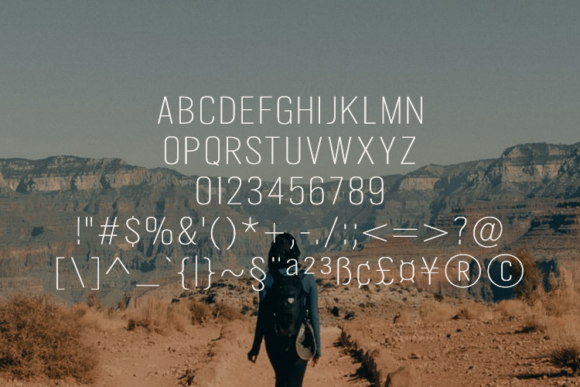
Introducing Corela Font: The Perfect Blend of Smooth and Sharp
Are you a designer or crafter looking for a font that can elevate your creative projects to the next level? Look no further than Corela Font, a fancy, contemporary sans serif font that is sure to impress. With its perfectly balanced mix of smooth and sharp lines, Corela Font is the perfect complement to any design need.
What is Corela Font?
Corela Font is a modern sans serif font that is designed to be both stylish and versatile. Its clean lines and balanced curves make it perfect for use in a wide range of design projects, from logos and branding to packaging and advertising. Whether you’re working on a digital project or a print project, Corela Font is sure to make a lasting impression.
Key Features of Corela Font
So, what sets Corela Font apart from other fonts? Here are just a few of its key features:
- Contemporary design: Corela Font has a modern, contemporary design that is sure to appeal to designers and crafters who are looking for a fresh, new look.
- Smooth and sharp lines: The font features a perfectly balanced mix of smooth and sharp lines, which gives it a unique and stylish appearance.
- Versatile: Corela Font is incredibly versatile, making it perfect for use in a wide range of design projects.
- Easy to read: Despite its stylish design, Corela Font is also easy to read, making it perfect for use in body text as well as headlines.
How to Use Corela Font
Corela Font is incredibly easy to use, and can be incorporated into your design projects in a variety of ways. Here are just a few ideas to get you started:
- Logos and branding: Use Corela Font to create a stylish and memorable logo for your business or brand.
- Packaging design: Corela Font is perfect for use in packaging design, where its clean lines and balanced curves can help to make your product stand out on store shelves.
- Advertising: Use Corela Font in your advertising materials, such as flyers, brochures, and billboards, to add a touch of style and sophistication.
- Digital design: Corela Font is also perfect for use in digital design projects, such as website design, social media graphics, and email marketing campaigns.
Tips for Pairing Corela Font with Other Design Elements
Corela Font is a versatile font that can be paired with a wide range of other design elements to create a unique and stylish look. Here are just a few tips for pairing Corela Font with other design elements:
- Use with bold colors: Corela Font looks great when paired with bold, bright colors. Try using it with a bold color scheme to add a pop of personality to your design.
- Pair with images: Corela Font also looks great when paired with images. Try using it to add text to a photo or illustration, or to create a stylish caption.
- Use with textures: Adding textures to your design can help to add depth and interest. Try pairing Corela Font with a textured background or overlay to create a unique look.